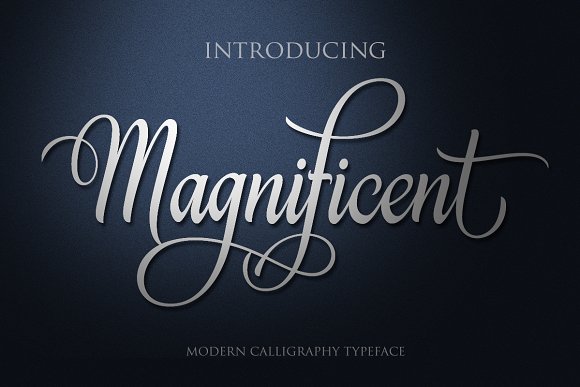
Adorn your designs with the captivating charm of Magnificent Font, a breathtaking handwritten masterpiece crafted by Byuly Ayika. Its intricate swashes and fluid characters dance across the page, evoking a sense of elegance and whimsy.
Immerse yourself in the world of calligraphy with Magnificent Font, where each letter is a work of art. Its natural, flowing style invites your imagination to soar, making it the perfect choice for love letters, invitations, and any project that calls for a touch of romance.
Whether you're penning a heartfelt message or creating a captivating design, Magnificent Font adds an irresistible touch of sophistication and timeless beauty. Its versatility knows no bounds, captivating audiences in a myriad of applications.
With Magnificent Font at your fingertips, the possibilities are endless. Let your creativity flourish as you explore the boundless realms of typography. Embrace the allure of hand-lettered elegance and leave an everlasting impression on your audience.